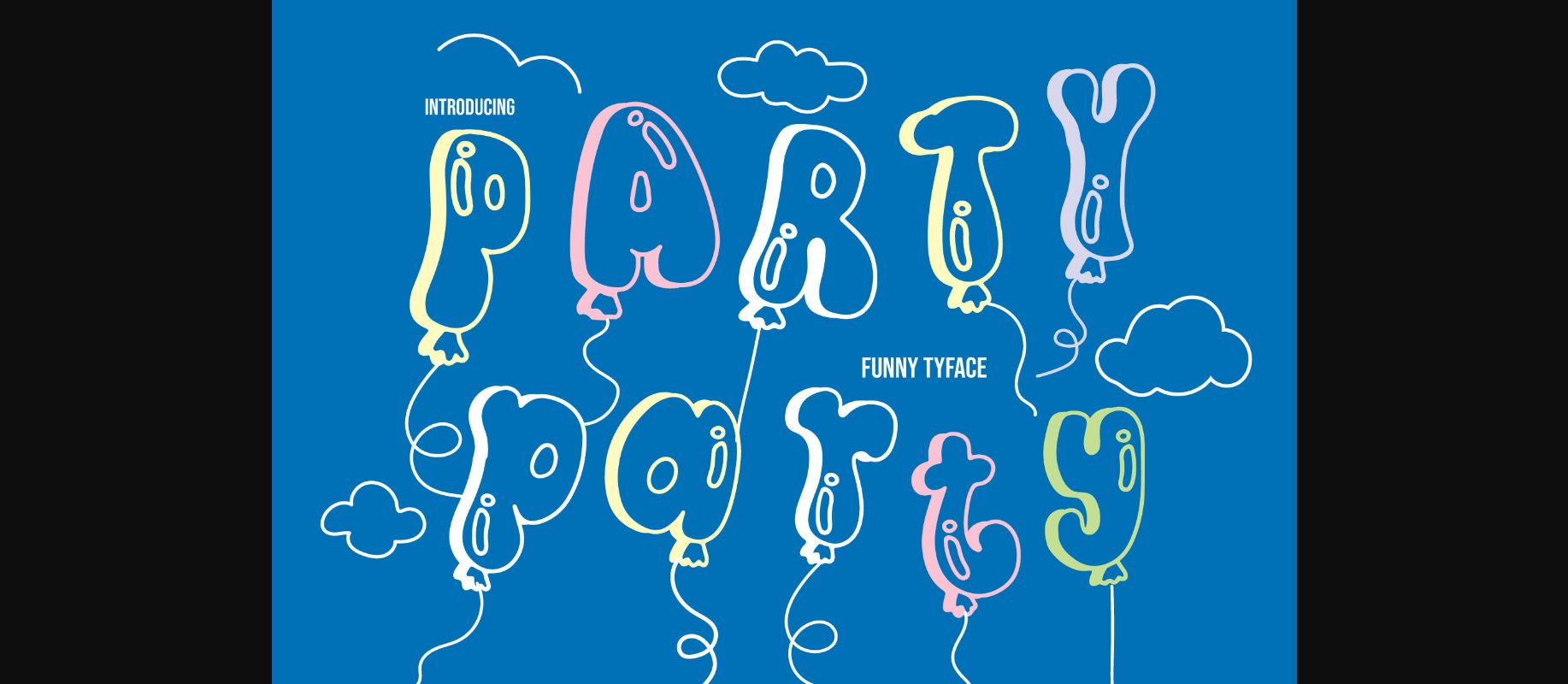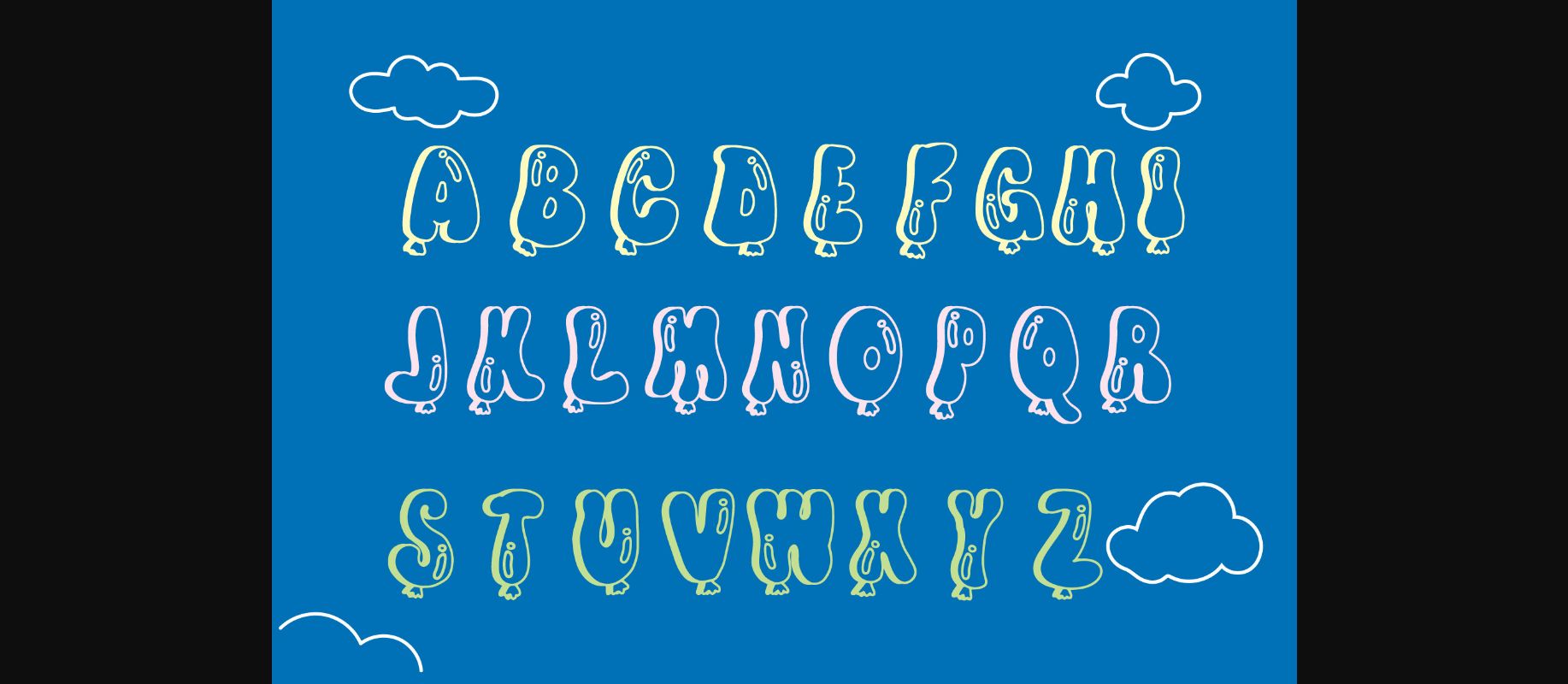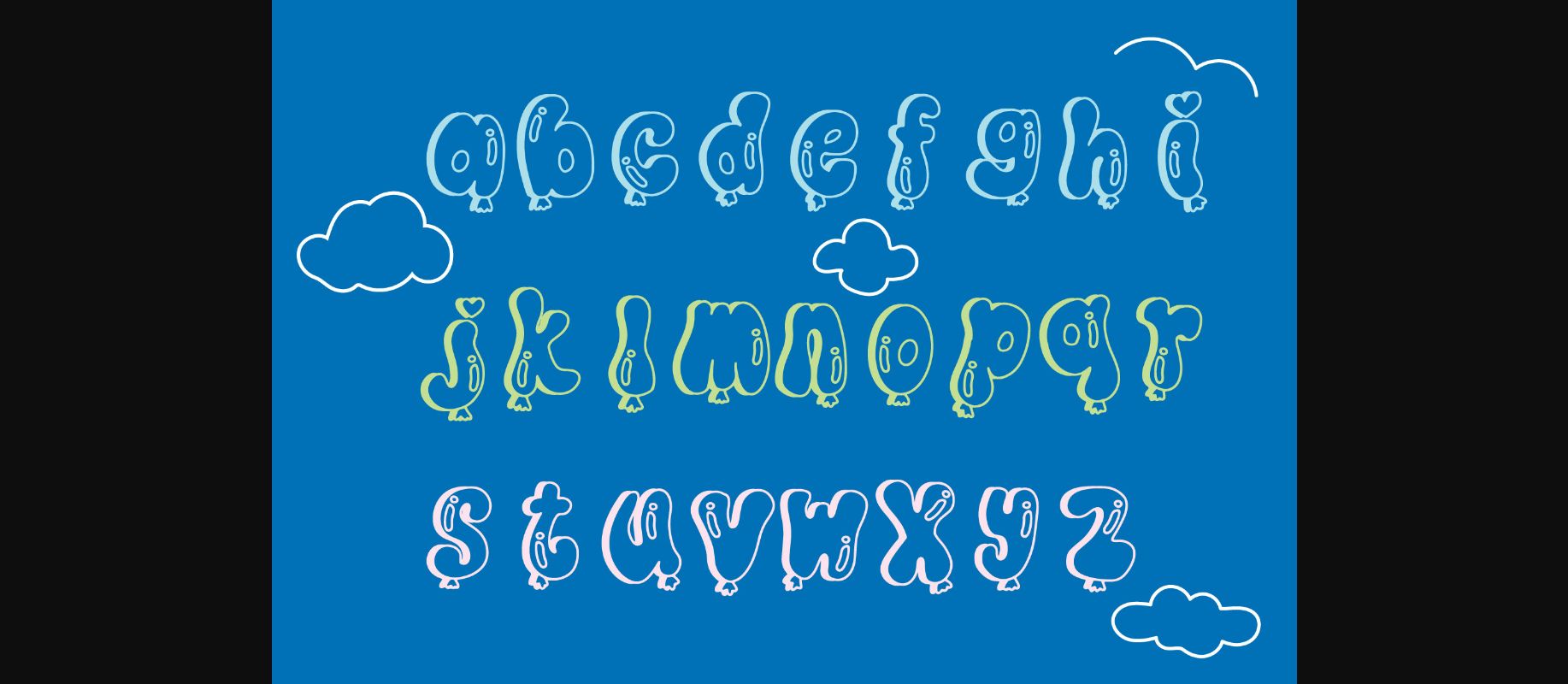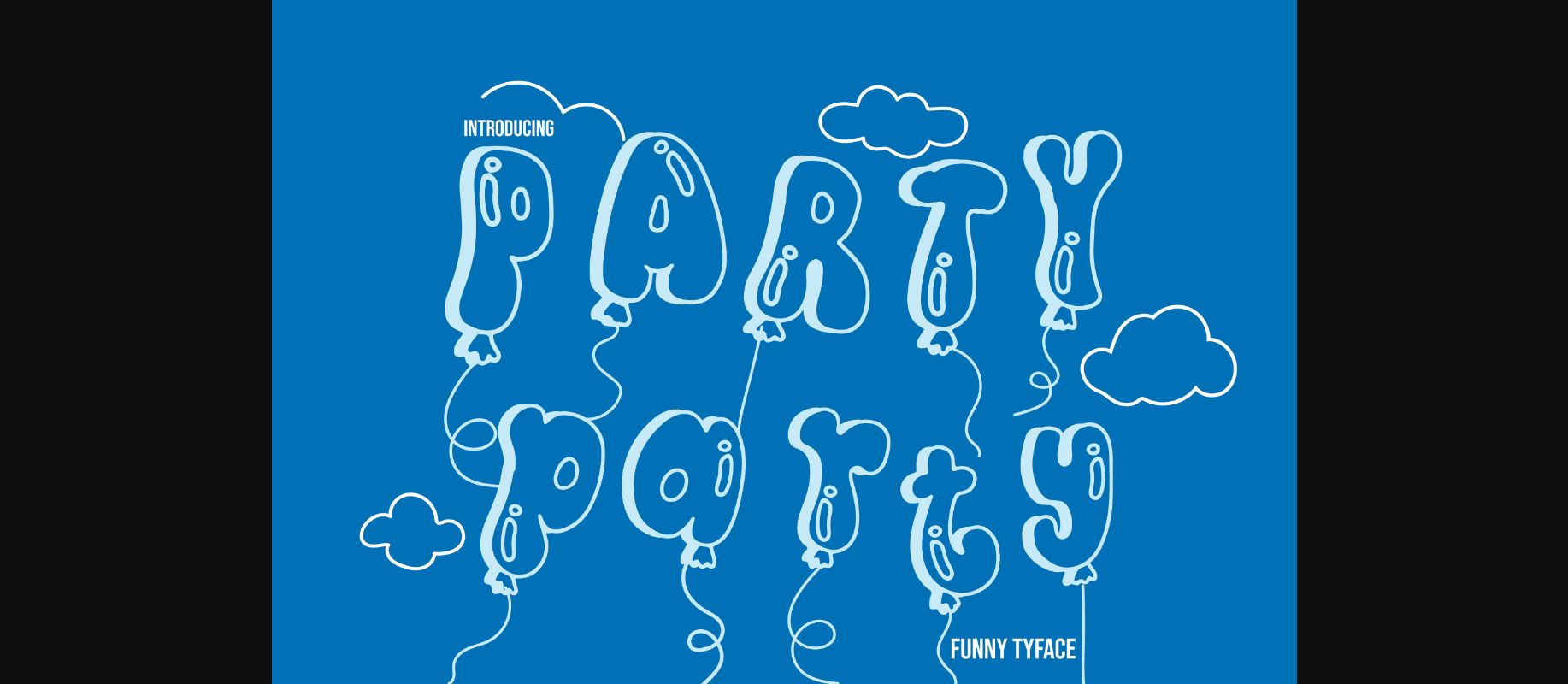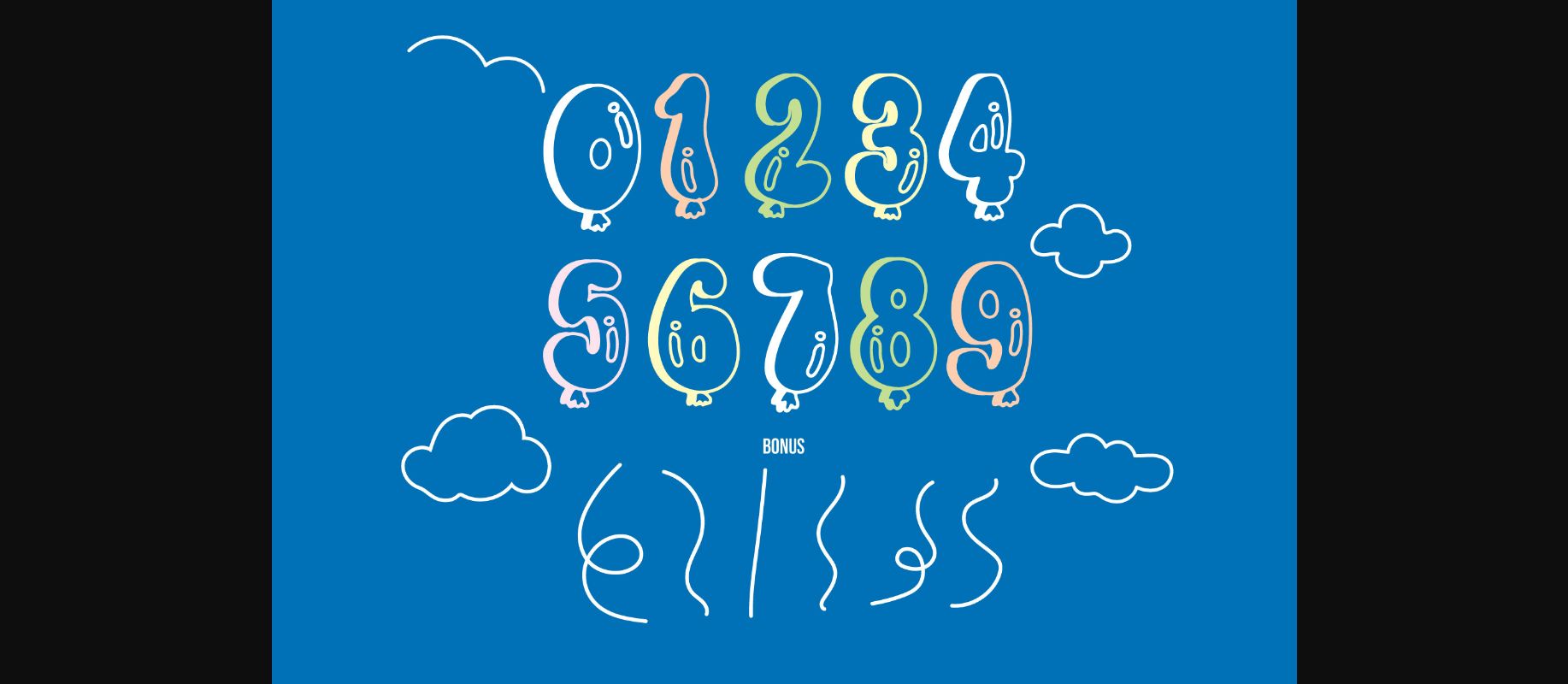
HomeDecorative FontsParty Font Decorative Fonts Party Font FacebookXPinterestWhatsApp 1 of 7 ... Party Font Poster 2... Party Font Poster 3... Party Font Poster 4... Party Font Poster 5... Party Font Poster 6... Party Font Poster 7... About Party Font Party is a cute and incredibly unique decorative font. It can be used for various design ideas, particularly those related to the Christmas Holiday. DOWNLOAD NOW People also explored Millow Font The Bocone Font Charcoal Black Bella Canvas 134B Mockup Yokkey Font Backpack Font Bokeseni Black Condensed Font Marsha Joshua Font Ornella Font Blackline 326 0 TagsPartyParty Font Previous articleBalloon FontNext articleChristmas Festival Font LEAVE A REPLY Cancel reply Comment: Please enter your comment! Name:* Please enter your name here Email:* You have entered an incorrect email address! Please enter your email address here Website: Save my name, email, and website in this browser for the next time I comment. Personal Use Free BD Nokio Personal Use Free Read more about this font Harmony Personal Use Free Read more about this font Open Store Personal Use Free Read more about this font Kids Toys Personal Use Free Read more about this font BLOG How to Install and Use Fonts on Windows, macOS, and Web Projects How to Install and Use Fonts on Windows, macOS, and Web Projects Fonts are a crucial part of design and branding. Whether you’re designing a... 5 Fonts That Will Dominate Design Trends in 2026 Best Fonts for T-Shirt Design – Top 2025 Picks Fonts That Capture the Spirit of New York City